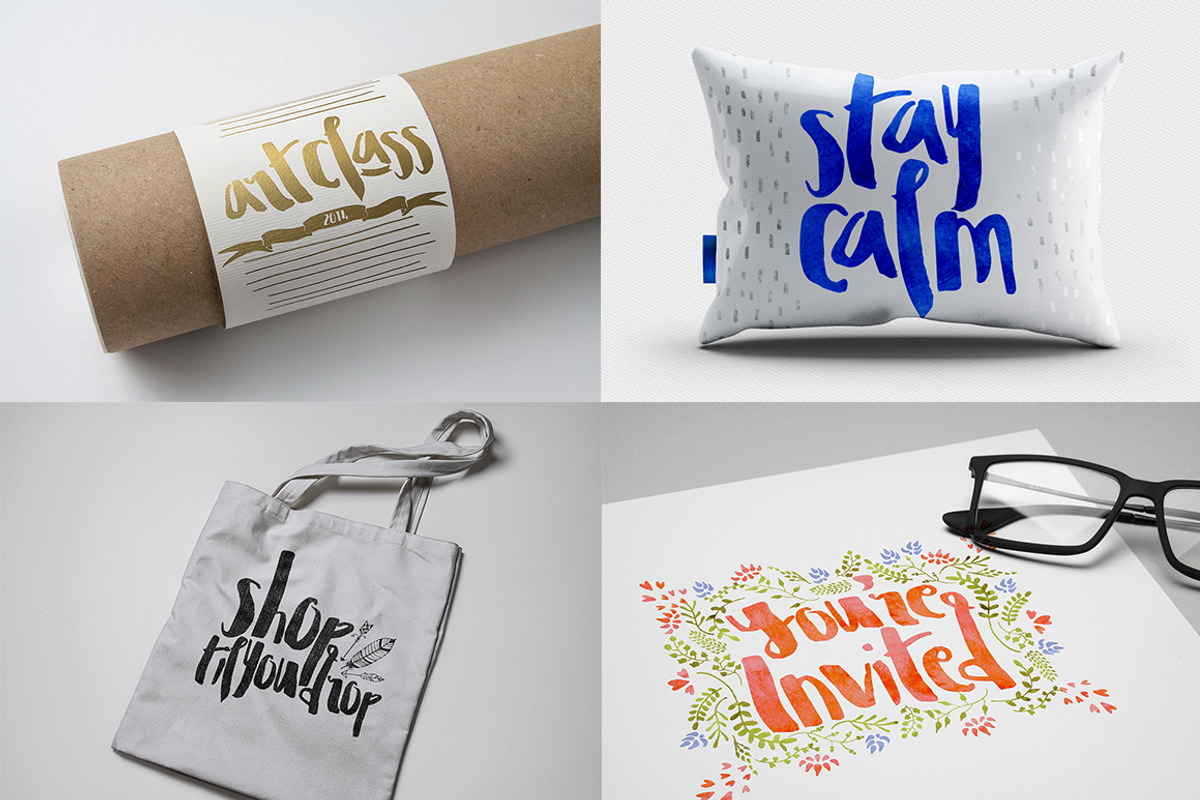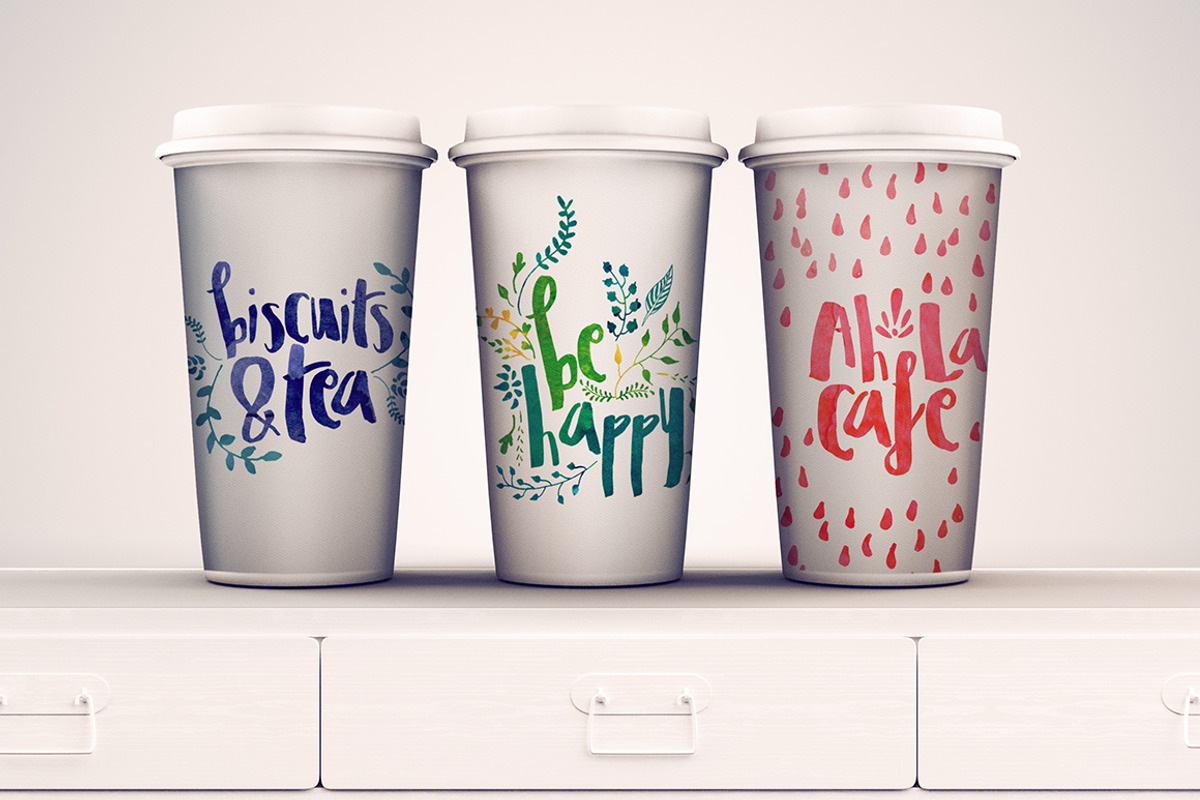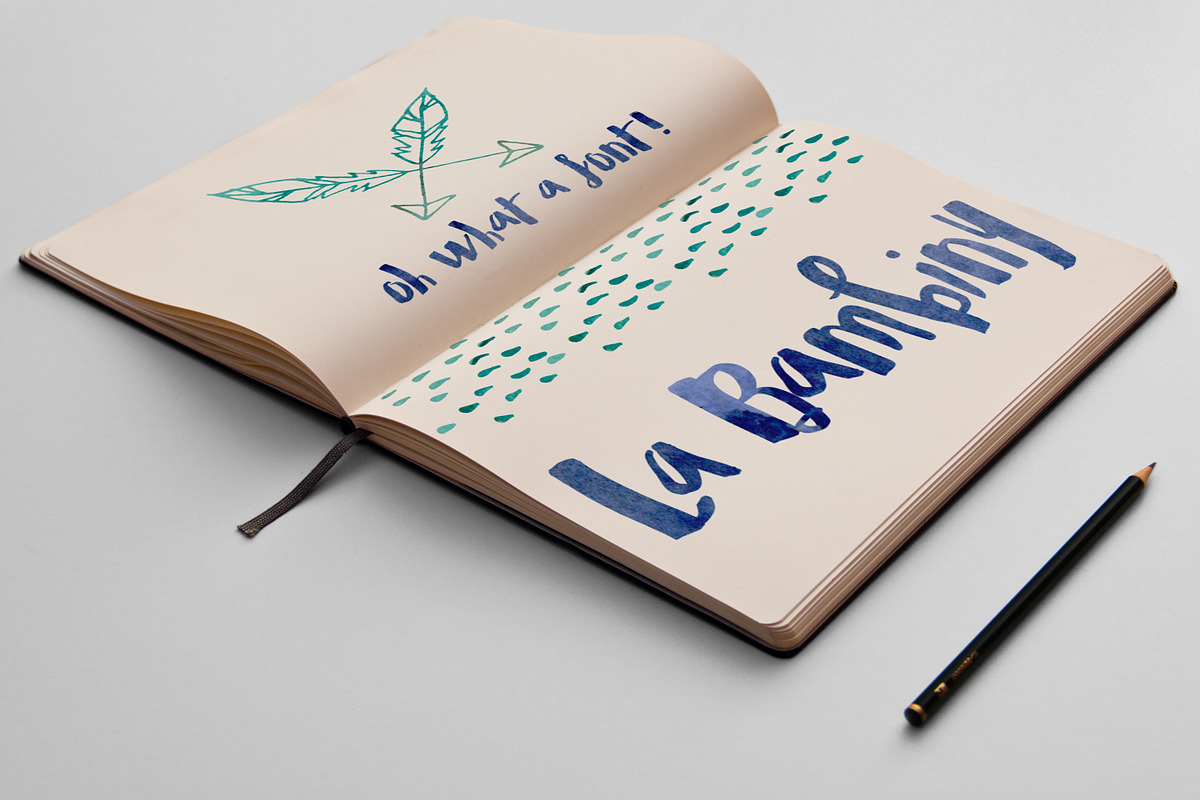
La Bambiny Typeface
La Bambiny Typeface by Creativeqube Design is a font selected for branding, posters, packaging, typography.
Why La Bambiny Typeface is worth a look
La Bambiny Typeface by Creativeqube Design fits naturally into Branding, posters, packaging, typography.